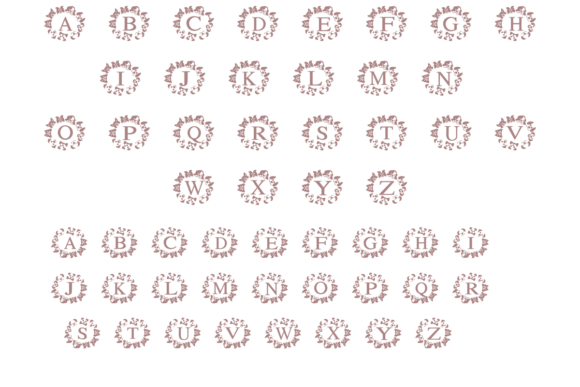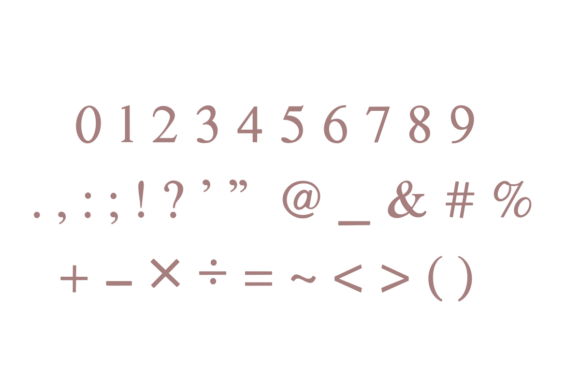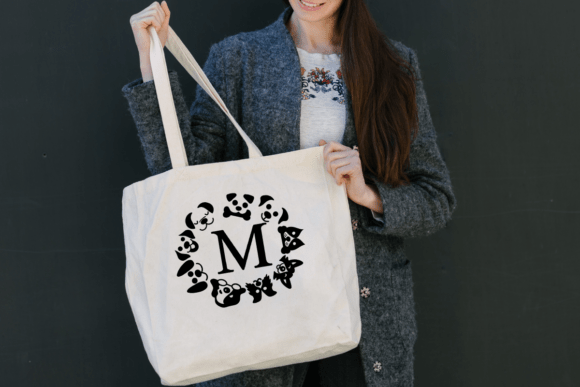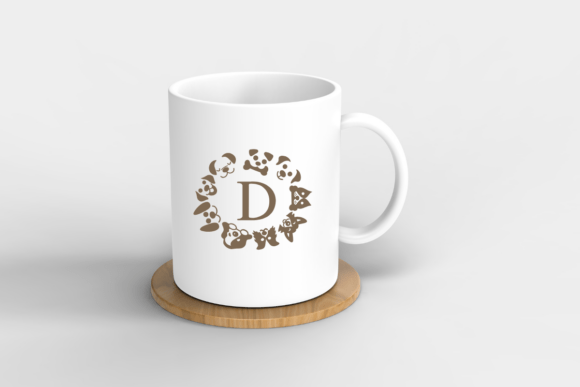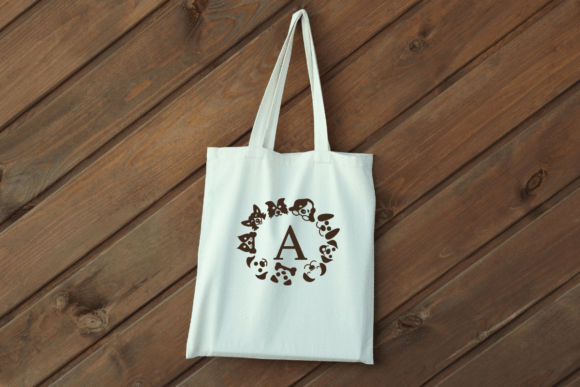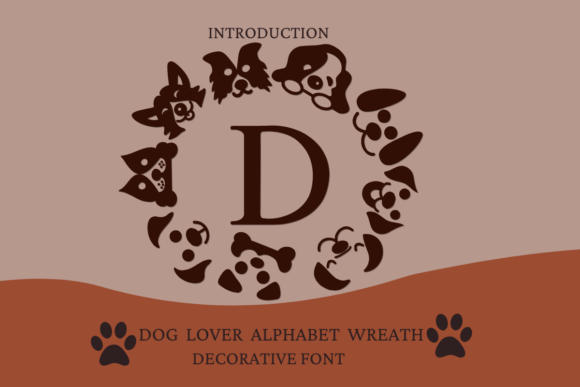
Unleash Your Creativity with Dog Lover Alphabet Wreath Font
Are you a dog lover looking for a unique and charming way to express your passion for canines? Look no further than the Dog Lover Alphabet Wreath Font! This delightful font wraps each letter in a playful wreath of dog illustrations, making it the paw-fect addition to any pet-themed project. Whether you’re a designer, crafter, or simply a dog enthusiast, this font is sure to bring a smile to your face and inspire your creativity.
What is Dog Lover Alphabet Wreath Font?
Dog Lover Alphabet Wreath Font is a one-of-a-kind decorative font that features beautiful, hand-crafted illustrations of dogs woven together to form a wreath around each letter of the alphabet. From A to Z, each letter is meticulously designed to showcase a variety of dog breeds, making it a true delight for dog lovers. The font is perfect for a wide range of applications, including custom prints, logos, gifts, and more.
• Unique and Charming Design: Each letter is carefully crafted with a wreath of dog illustrations, making it a standout addition to any project.
• Perfect for Pet-Themed Projects: Whether you’re creating custom pet portraits, pet-themed gifts, or dog-related marketing materials, this font is sure to impress.
• High-Quality Illustrations: The dog illustrations are beautifully crafted, ensuring that your projects will look professional and visually appealing.
• Versatile: The font can be used for a wide range of applications, from digital designs to print materials.
Ideas for Using Dog Lover Alphabet Wreath Font
The possibilities are endless when it comes to using Dog Lover Alphabet Wreath Font! Here are a few ideas to get you started:
• Custom Pet Portraits: Create personalized pet portraits using the font to add a special touch.
• Pet-Themed Gifts: Design custom gifts, such as mugs, t-shirts, and tote bags, featuring the font and a special message.
• Dog Lover Logos: Use the font to create a logo for your dog-related business or organization.
• Social Media Graphics: Create eye-catching social media graphics featuring the font to share with your followers.
• Custom Prints: Design beautiful custom prints featuring the font, perfect for decorating your home or giving as a gift.
Dog Lover Alphabet Wreath Font is a charming and unique decorative font that’s sure to delight dog lovers and designers alike. With its beautiful illustrations and easy-to-use design, it’s the paw-fect addition to any pet-themed project. Whether you’re creating custom prints, logos, gifts, or more, this font is sure to bring a touch of personality and whimsy to your work. So why wait? Unleash your creativity and get ready to fall in love with Dog Lover Alphabet Wreath Font!